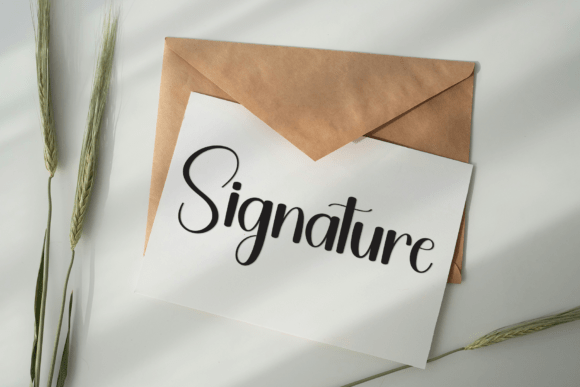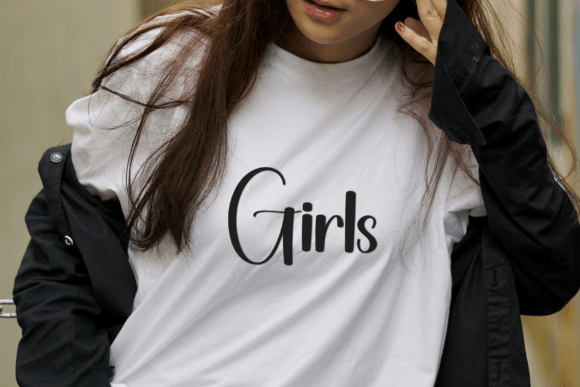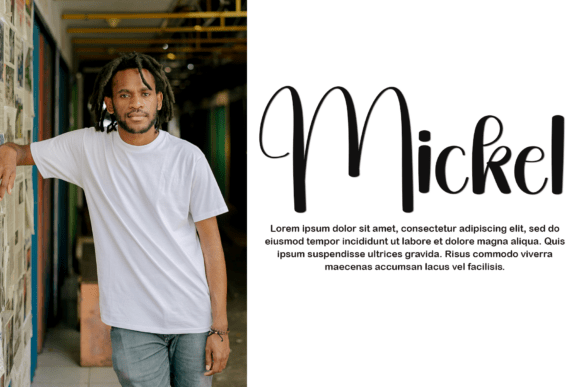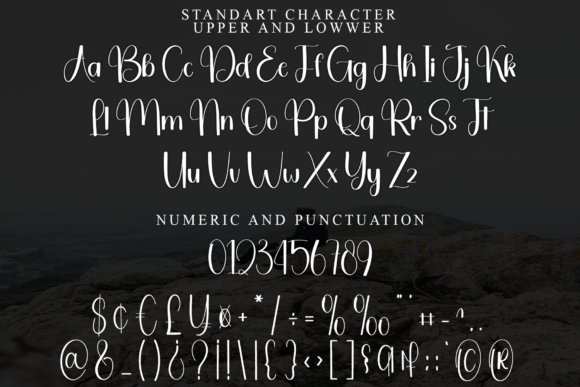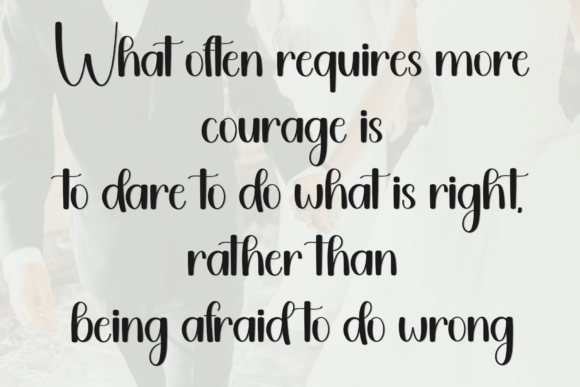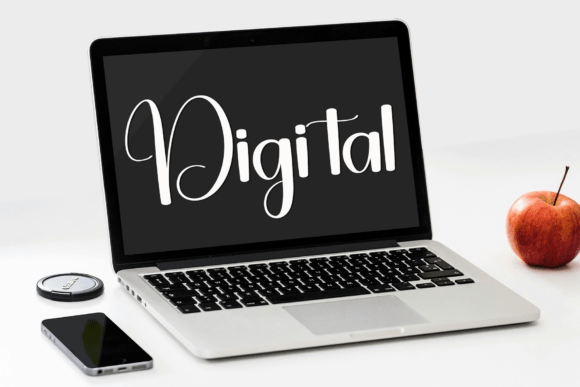
Easter Tumbler Font: Elevate Your Designs with Elegance and Sophistication
Are you on the hunt for a font that exudes elegance, sophistication, and a touch of modern flair? Look no further than the Easter Tumbler Font, a stunning handwritten typeface that is sure to capture your heart. Designed with meticulous attention to detail, this exquisite font seamlessly blends classic calligraphic influences with a fresh, contemporary feel.
A Perfect Blend of Classic and Modern
Easter Tumbler Font boasts a unique charm that sets it apart from other fonts in its category. Its classy, calligraphic roots are evident in its flowing lines and delicate strokes, yet it also possesses a modern sensibility that makes it perfect for a wide range of design applications. Whether you’re working on a branding project, crafting a beautiful wedding invitation, or creating engaging social media content, this versatile font is sure to impress.
Key Features of Easter Tumbler Font
- PUA Encoding: Easter Tumbler Font is PUA (Private Use Area) encoded, which means you can easily access all the amazing glyphs and ligatures without any hassle. This feature makes it incredibly user-friendly, allowing you to focus on your design rather than getting bogged down in technical complexities.
- Handwritten Elegance: The font’s handwritten nature gives it a personal, organic feel that is perfect for creating designs that resonate with your audience on an emotional level.
- Contemporary Aesthetic: Despite its classic influences, Easter Tumbler Font has a distinctly modern feel that will help your designs stand out in a crowded digital landscape.
- Versatility: From stationery and packaging to digital media and advertising, this font’s versatility knows no bounds. It’s suitable for a wide range of projects, making it an excellent addition to any designer’s toolkit.
Why Choose Easter Tumbler Font?
With so many fonts available, it can be challenging to choose the right one for your project. Here are just a few reasons why Easter Tumbler Font stands out from the crowd:
- Unique Style: Its distinctive blend of classic and modern elements ensures that your designs will have a unique, eye-catching quality that sets them apart.
- Easy to Use: Thanks to its PUA encoding, you can easily access all the font’s features without needing extensive technical knowledge.
- High-Quality Design: Crafted with precision and attention to detail, Easter Tumbler Font is a high-quality typeface that reflects positively on your brand or personal style.
Applications for Designers and Crafters
Easter Tumbler Font is an incredibly versatile typeface that can be used in a multitude of design applications. Here are some ideas to get you started:
- Branding and Logo Design: Create a lasting impression with a logo that incorporates Easter Tumbler Font, perfect for businesses looking for a sophisticated, elegant look.
- Stationery and Invitations: Add a touch of class to your wedding invitations, thank you cards, and other stationery with this beautiful font.
- Digital Media: From social media graphics to blog headers, Easter Tumbler Font can elevate your online presence with its fresh, modern aesthetic.
- Crafting and DIY Projects: If you’re a crafter or DIY enthusiast, this font can add a professional touch to your handmade goods, such as custom signs, labels, and packaging.
In conclusion, Easter Tumbler Font is a remarkable typeface that offers the perfect blend of elegance, sophistication, and modern flair. Its versatility, ease of use, and high-quality design make it an excellent choice for designers and crafters looking to elevate their projects. Whether you’re working on a professional design or a personal crafting project, this exquisite font is sure to bring your vision to life in the most beautiful way.